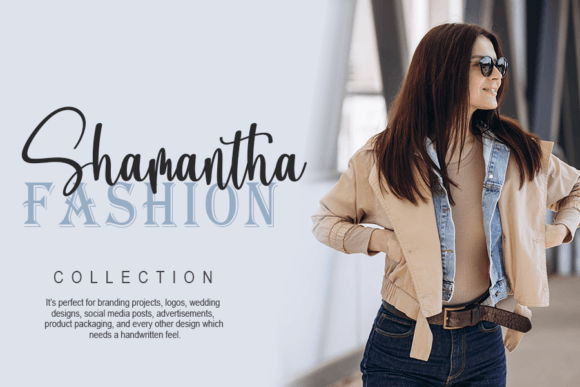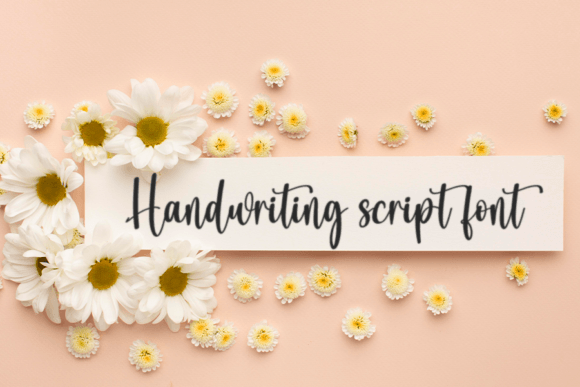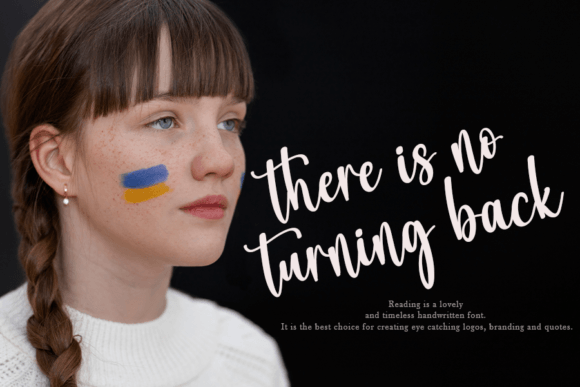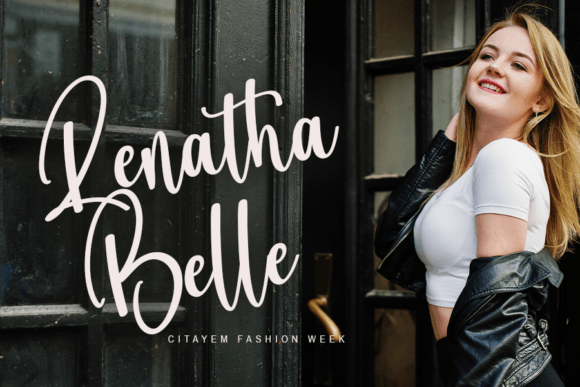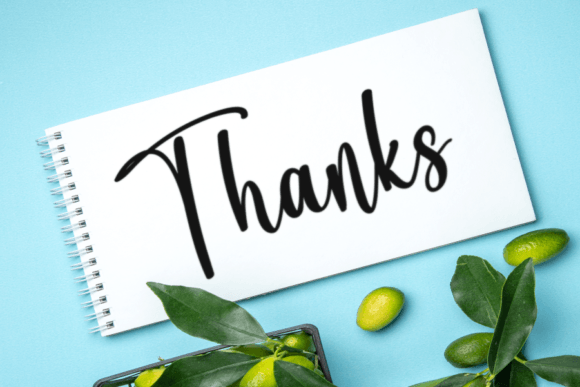
Reading Font
About Reading Font
Reading Font is a flowing and elegant handwritten typeface designed to bring sophistication and charm to your creative projects. It features smooth, graceful strokes and a classic calligraphic feel, making it suitable for designs that require a refined and timeless appearance.
From the moment you begin using this font, you’ll notice how effortlessly it enhances your compositions. Not only does it offer a modern aesthetic, but it also retains a hand-lettered warmth that feels personal and artistic.
Where to Use Reading Font
Whether you’re working on professional branding or personal artwork, Reading Font adapts beautifully to a wide variety of applications. For instance, it’s ideal for:
• Wedding invitations and save-the-dates
• Thank you cards and custom stationery
• Elegant logo designs and packaging
• Social media posts with a classy flair
• Quote graphics, headers, and promotional banners
• Elegant, smooth letterforms for a flowing feel
• Includes uppercase and lowercase characters
• Complete punctuation and multilingual support
• Perfect for projects that require a sophisticated or handwritten touch
The refined personality of Reading Font helps your text stand out without overwhelming your layout. Additionally, its readability ensures it remains practical across a wide range of uses.